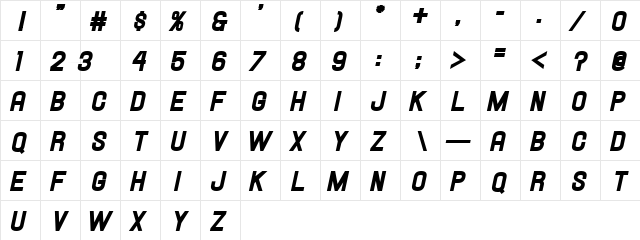
Hallandale Heavy Italic JL Regular
Design Context for Hallandale Heavy Italic JL Typeface
Hallandale Heavy Italic JL is a composed and adaptable typeface that performs quietly and consistently across a wide range of design contexts. The dynamic lean of this cut emphasises speed and emphasis in any layout.
Pro Tip: Try Hallandale Heavy Italic JL for annotation and caption copy alongside an upright companion — the contrast in angle creates a dynamic but ordered typographic system.